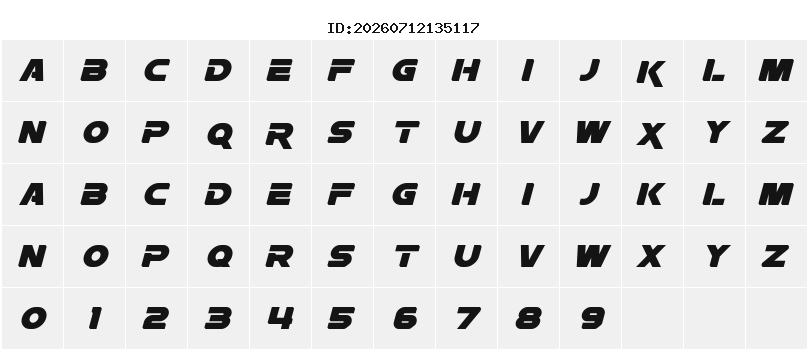
Rebellion Preview
• Font Name: Rebellion
• Full Font Name: Rebellion Italic
• Version: Version 1.00 November 26, 2014, initial release
• Designer: Neale Davidson
• Manufacturer: Neale Davidson
About Rebellion.otf
Rebellion.otf is a modern, elegant sans-serif font designed for ultimate readability and visual harmony. Perfect for branding, headlines, web design, and print materials.